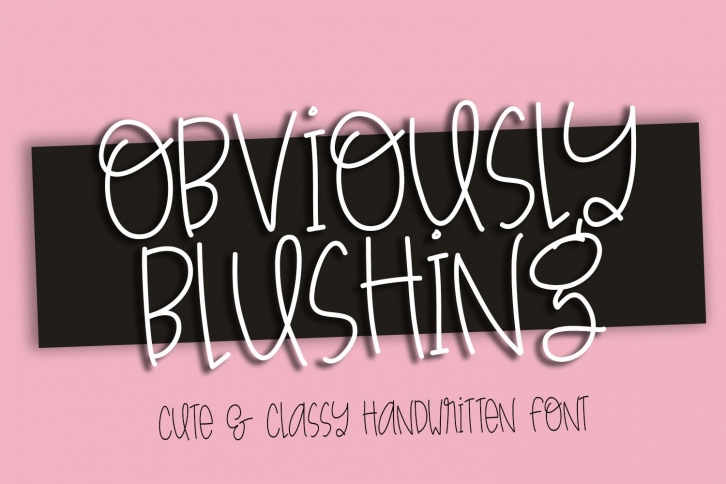
Obviously Blushing Handwritten Font is a sweetly simple, but super charming monoline, mixed-case font. It is perfect for any design that needs the personal touch of a handwritten font, and would be great on apparel, logos, and more!